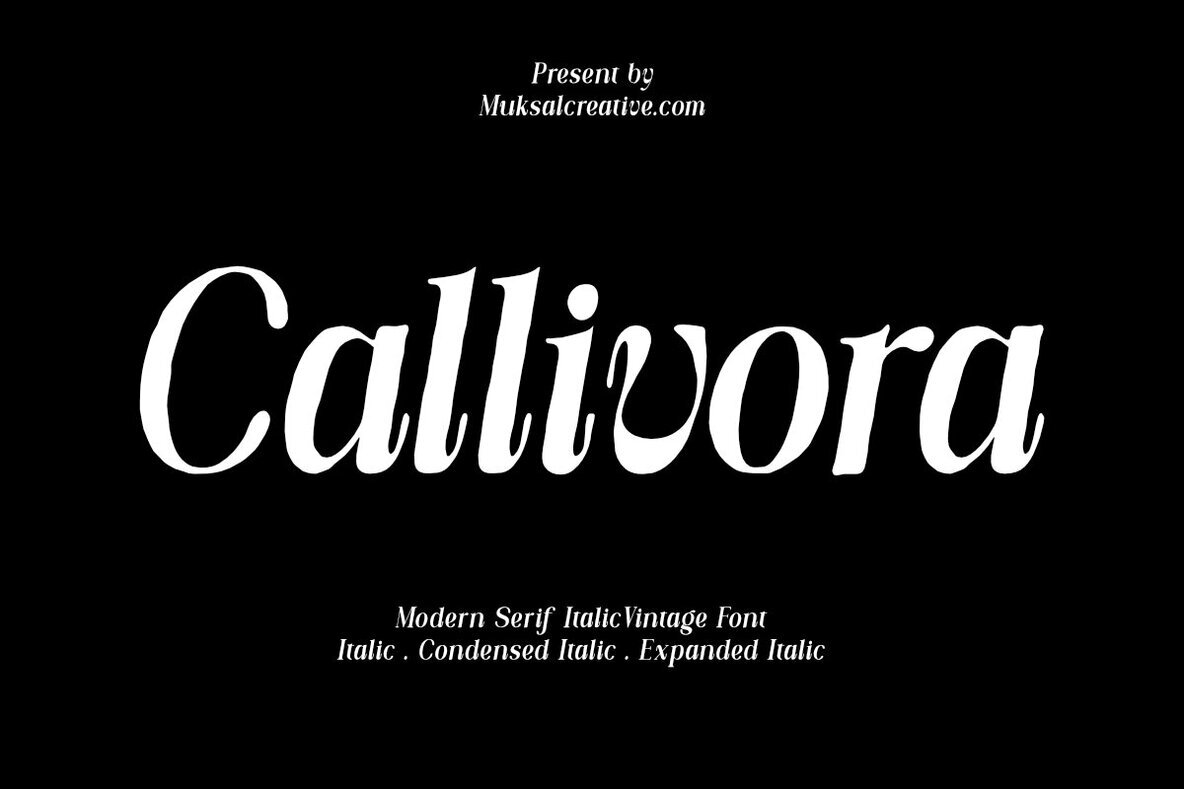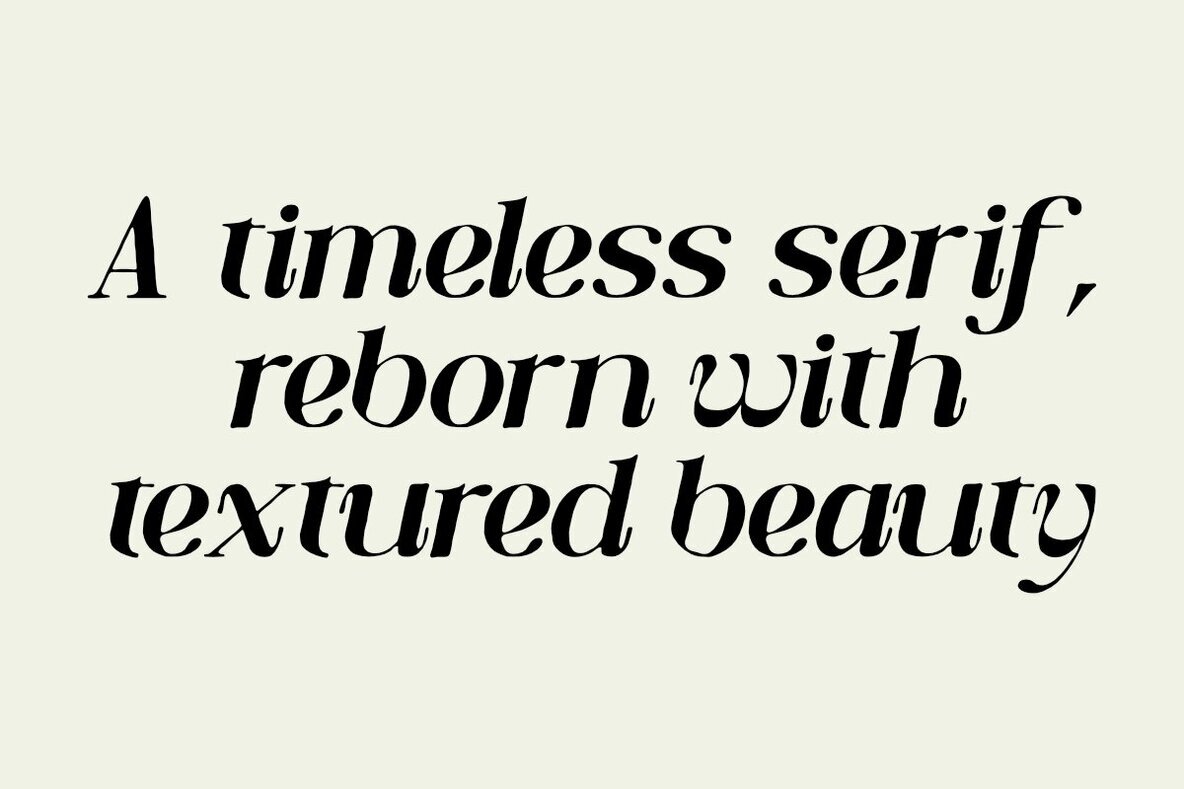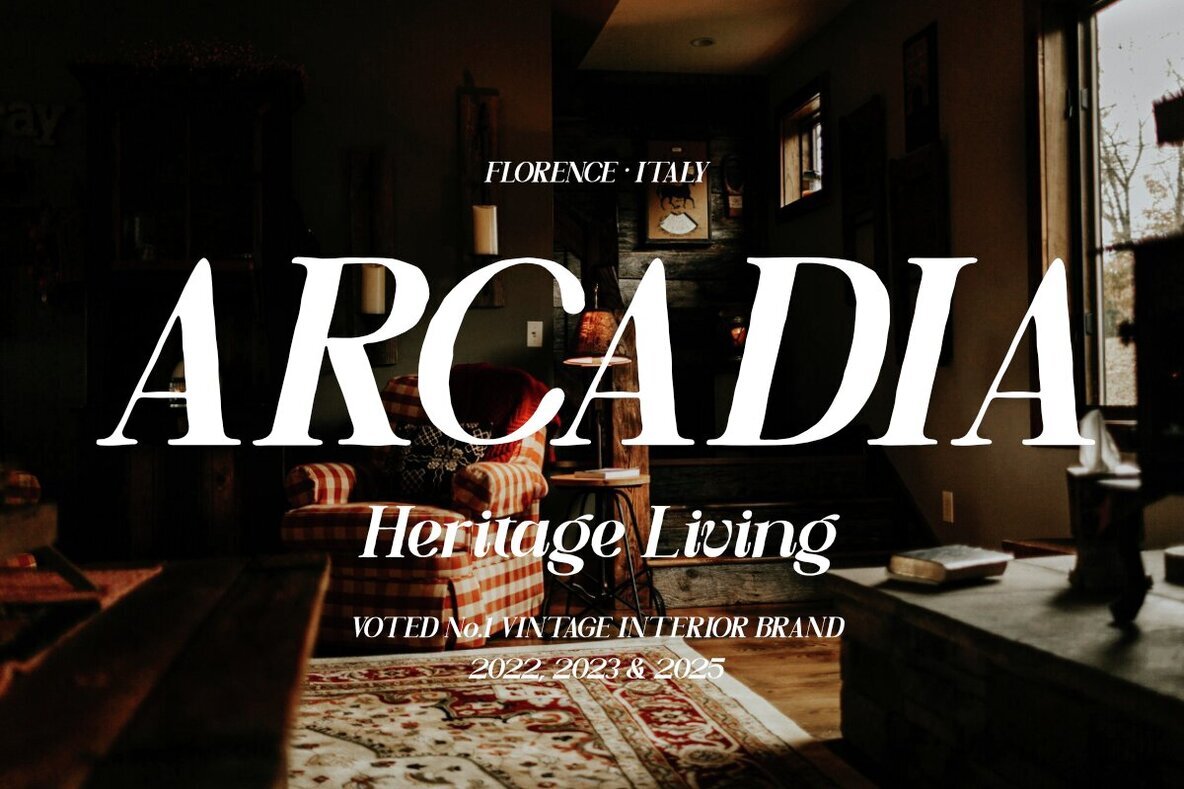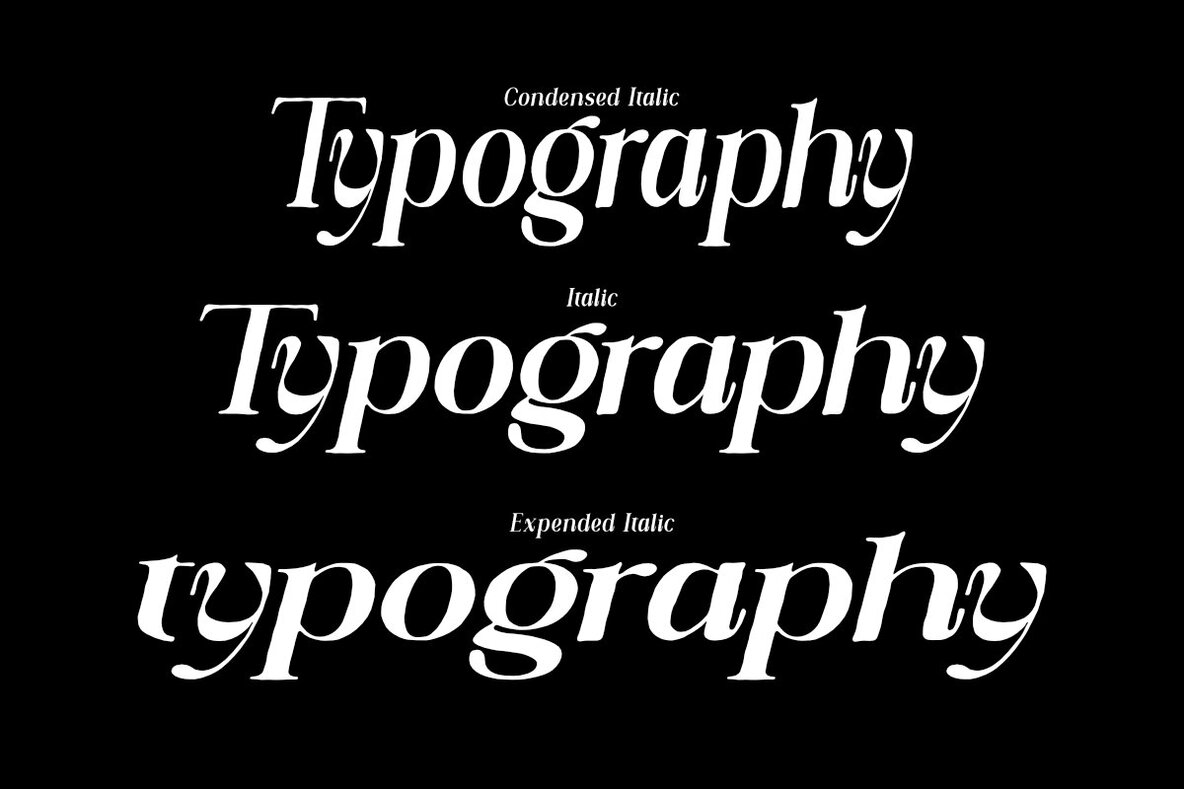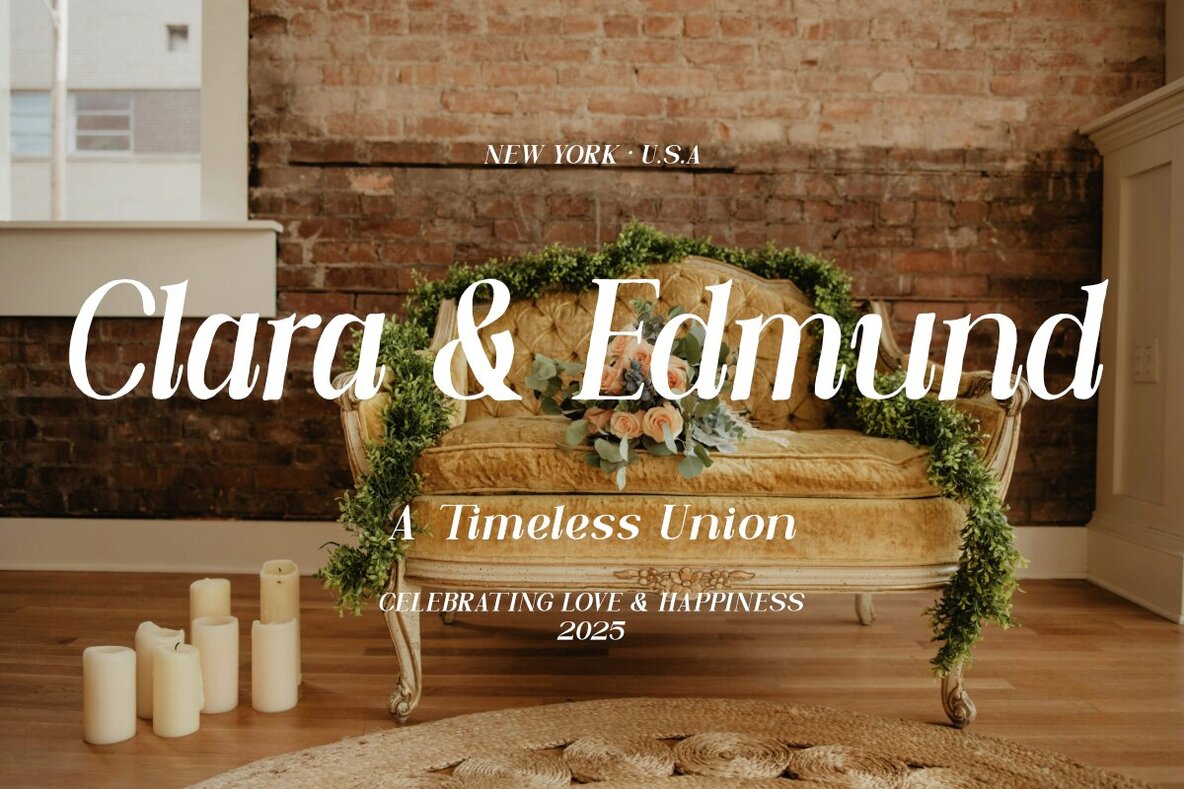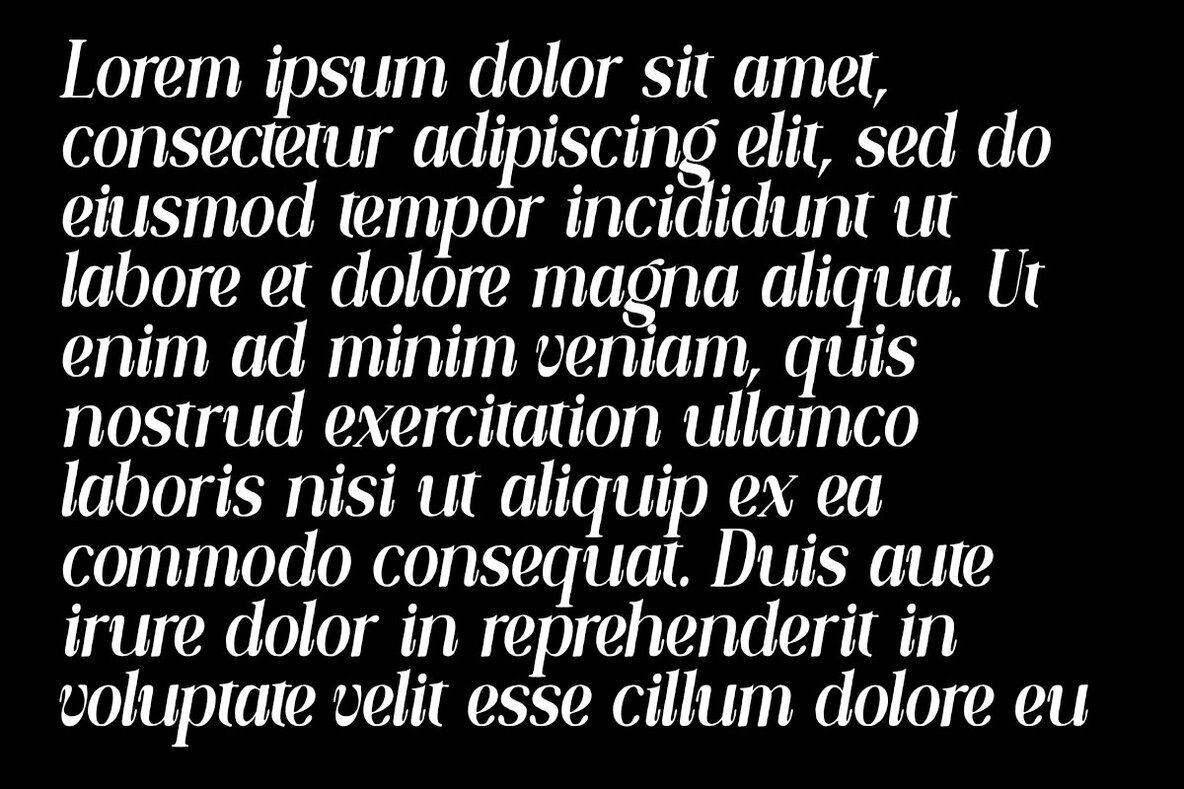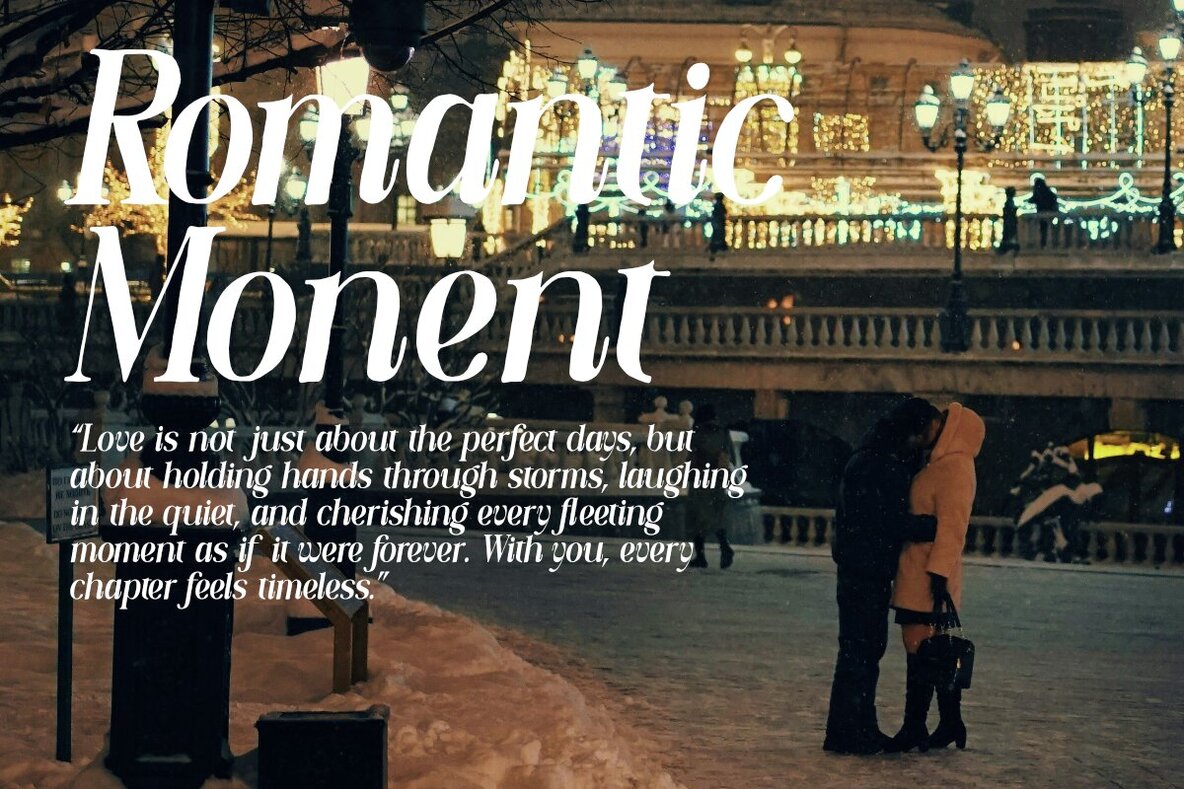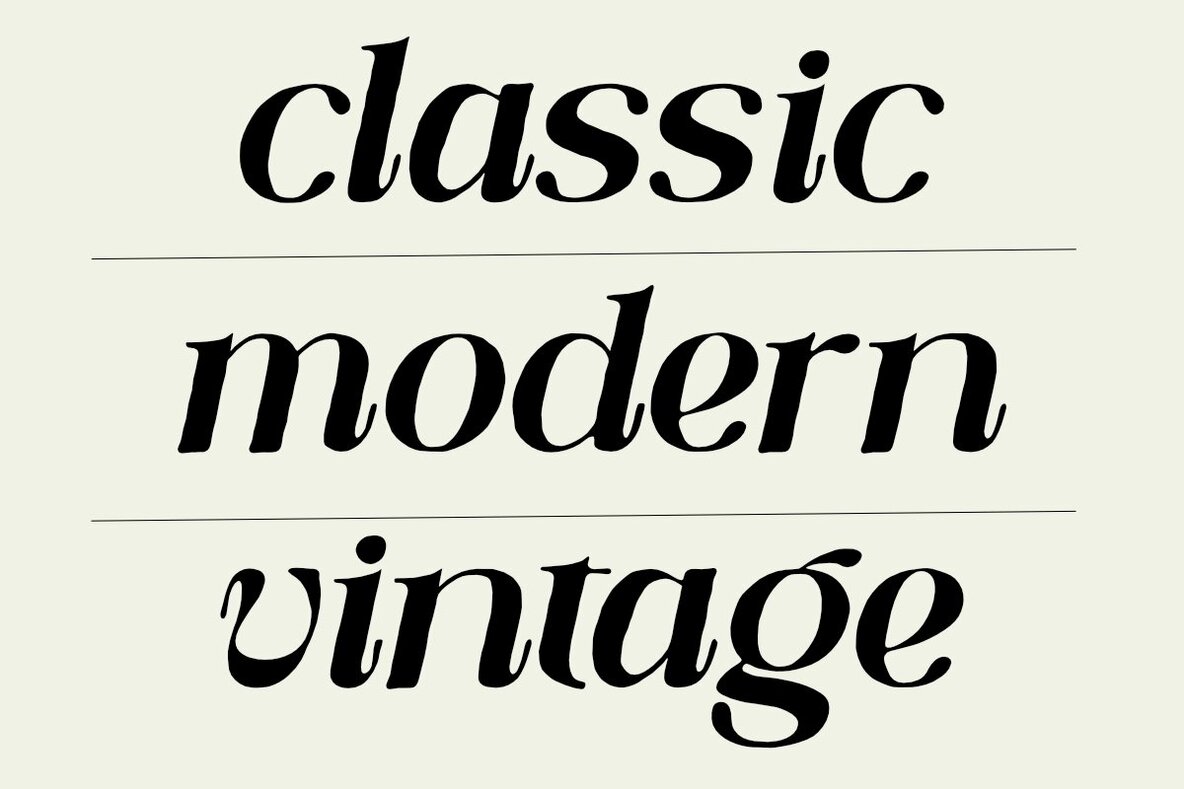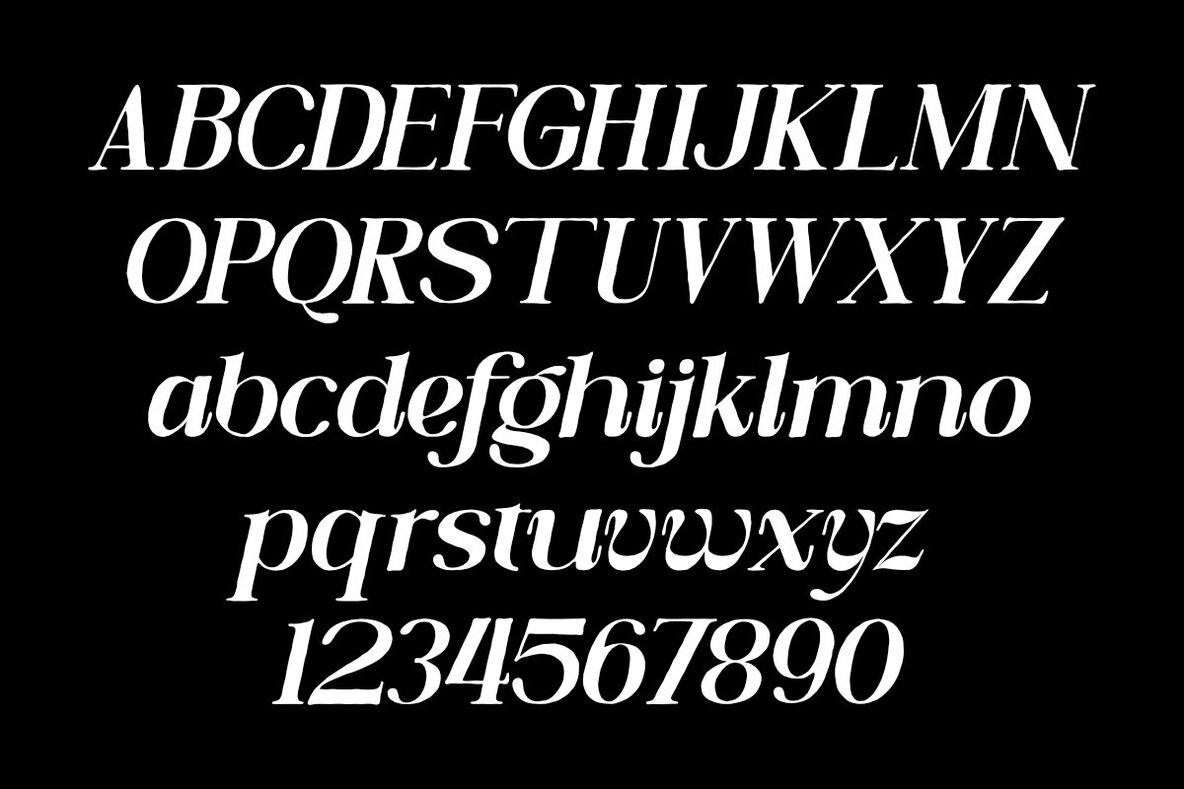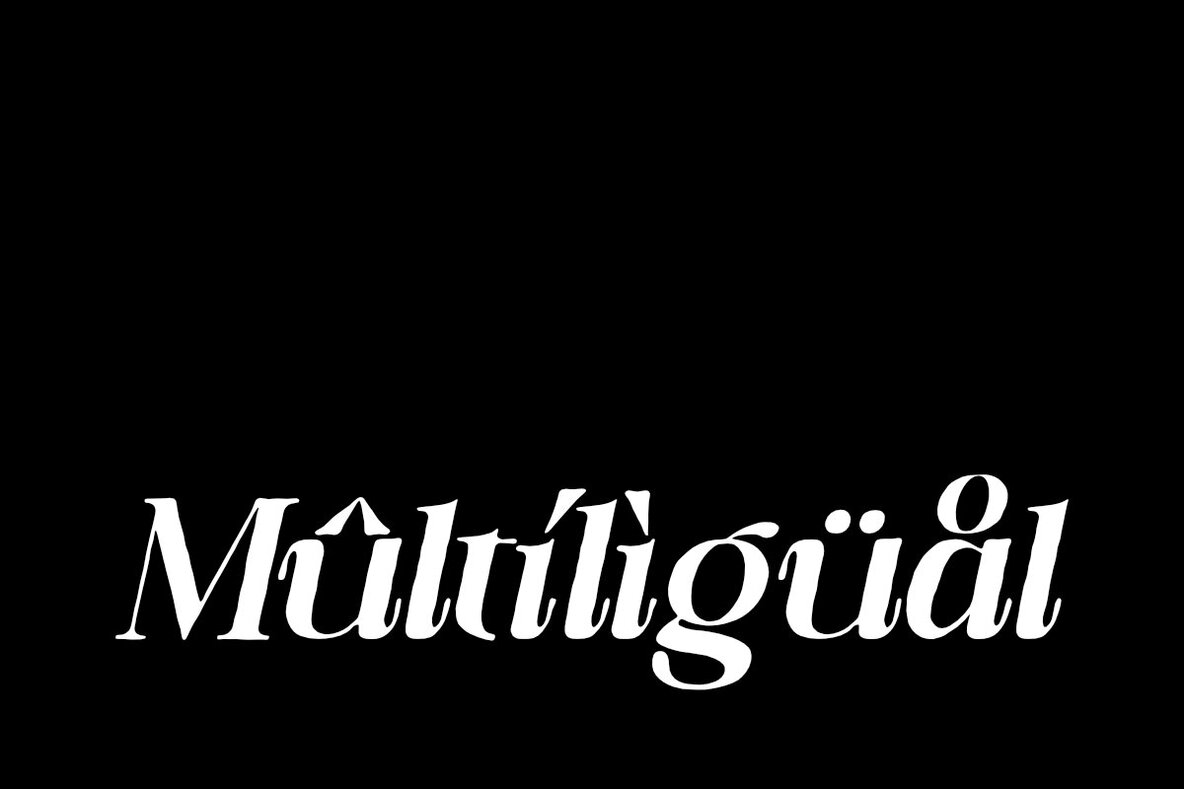
Callivora Font
Callivora, with its uniquely textured italic serif design, offers an exquisite blend of elegance and warmth in every character. Its smooth curves and hand-drawn details conjure a romantic nostalgia, making it a perfect choice for branding projects in search of artistry and timeless beauty.Callivora: Textured Italic Serif Font for Timeless Elegance